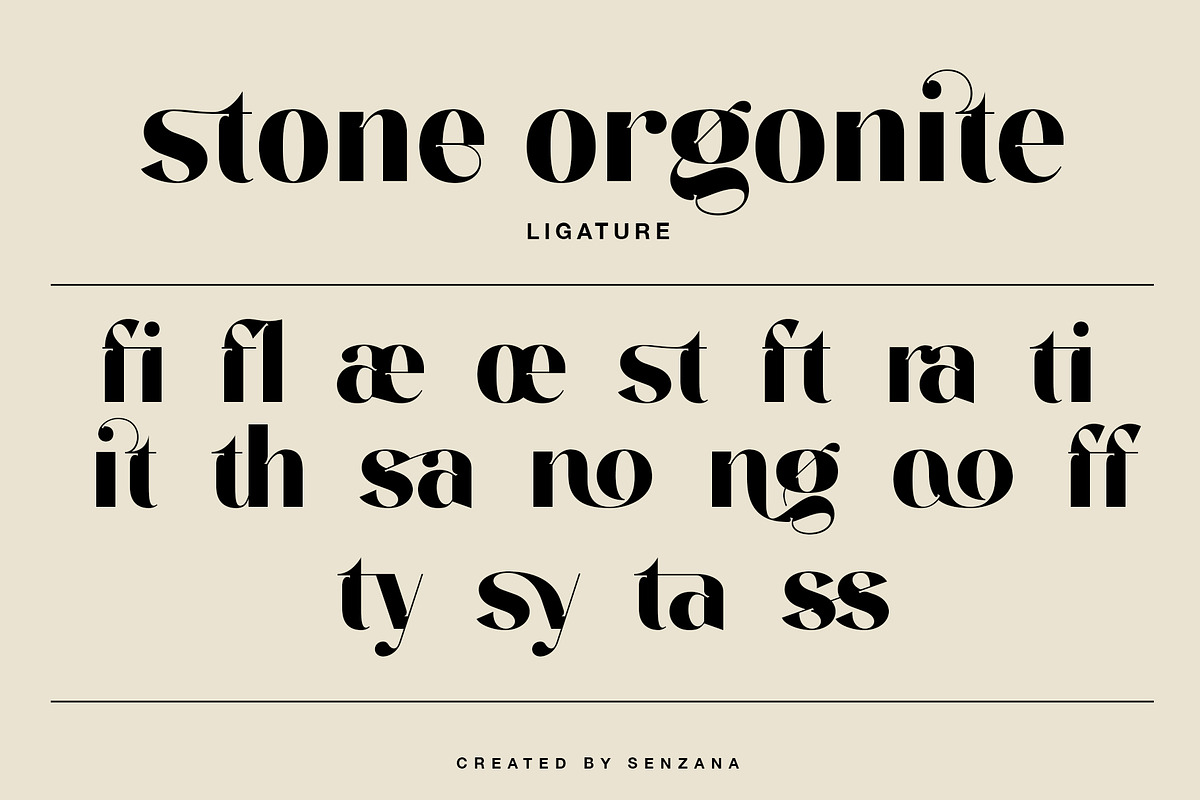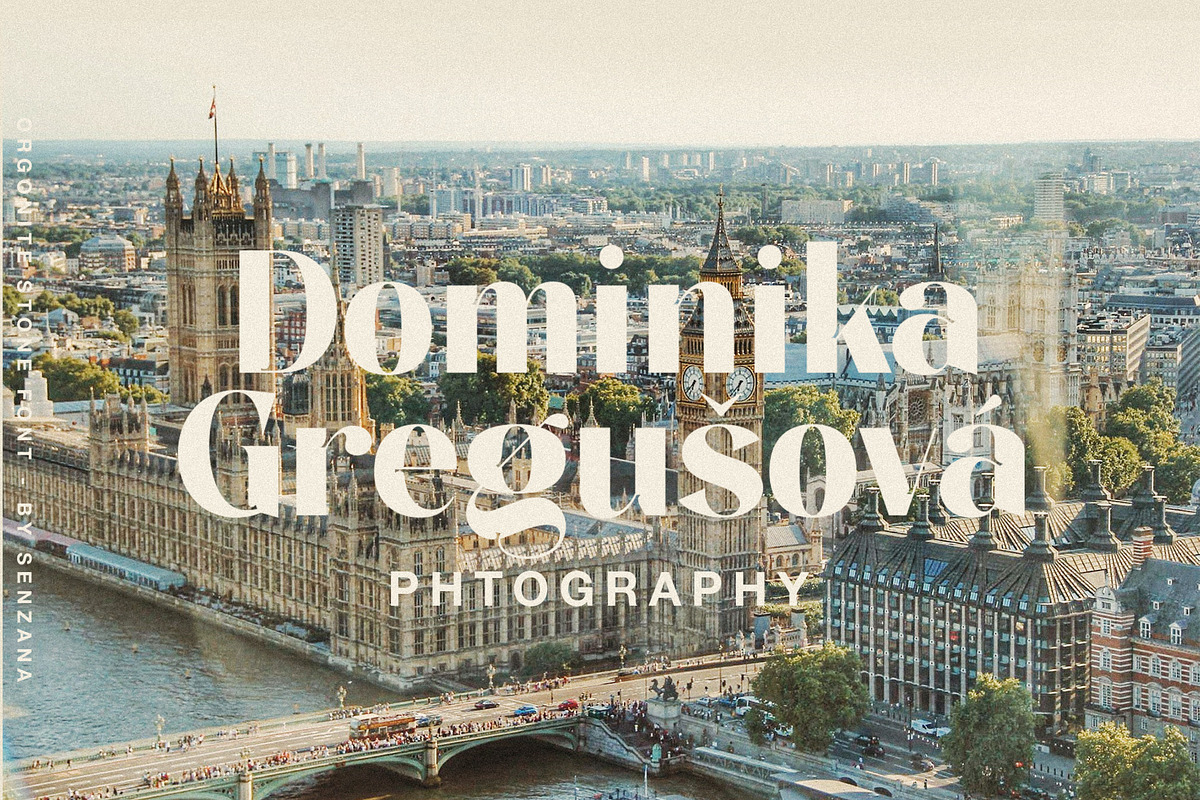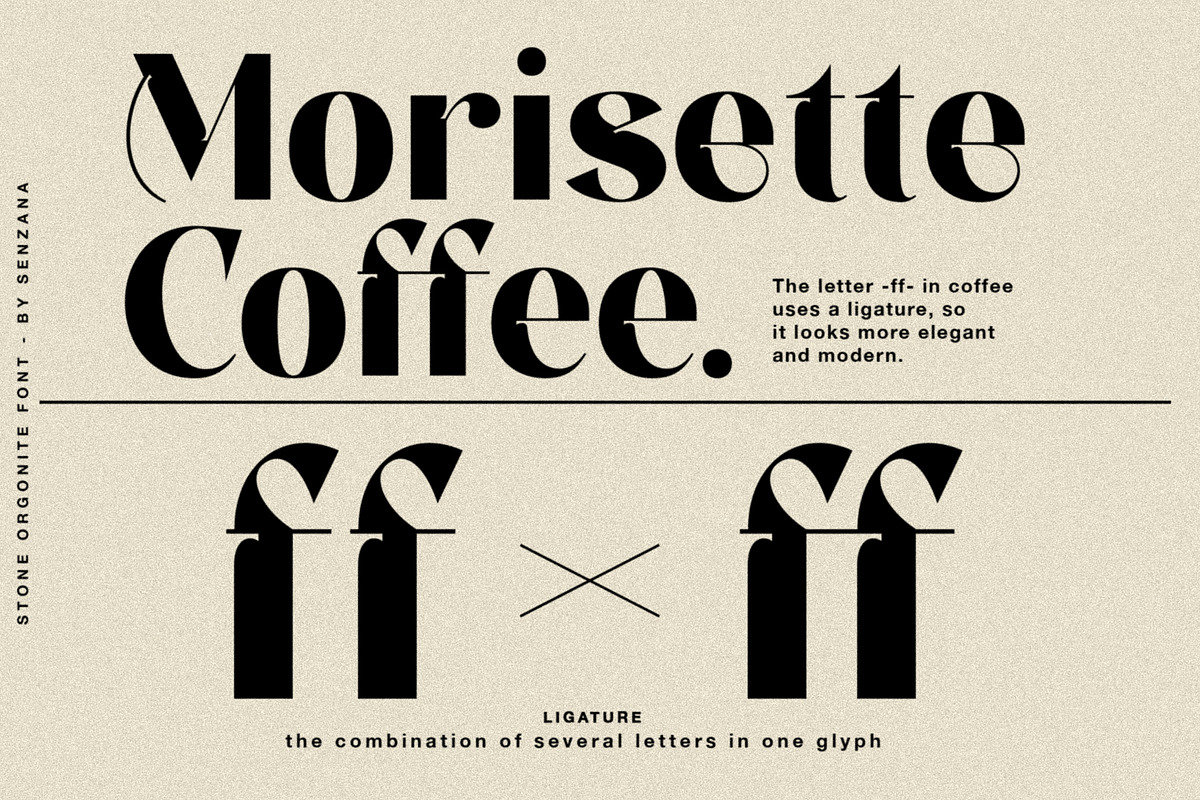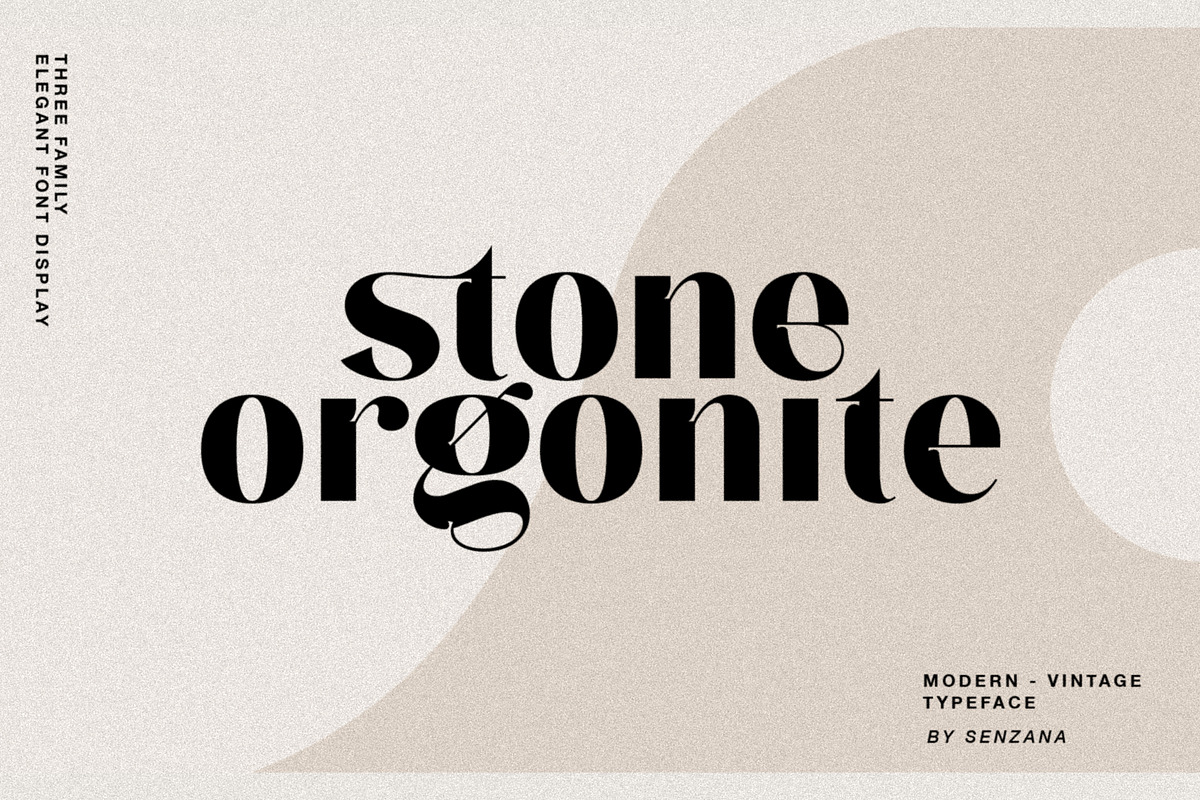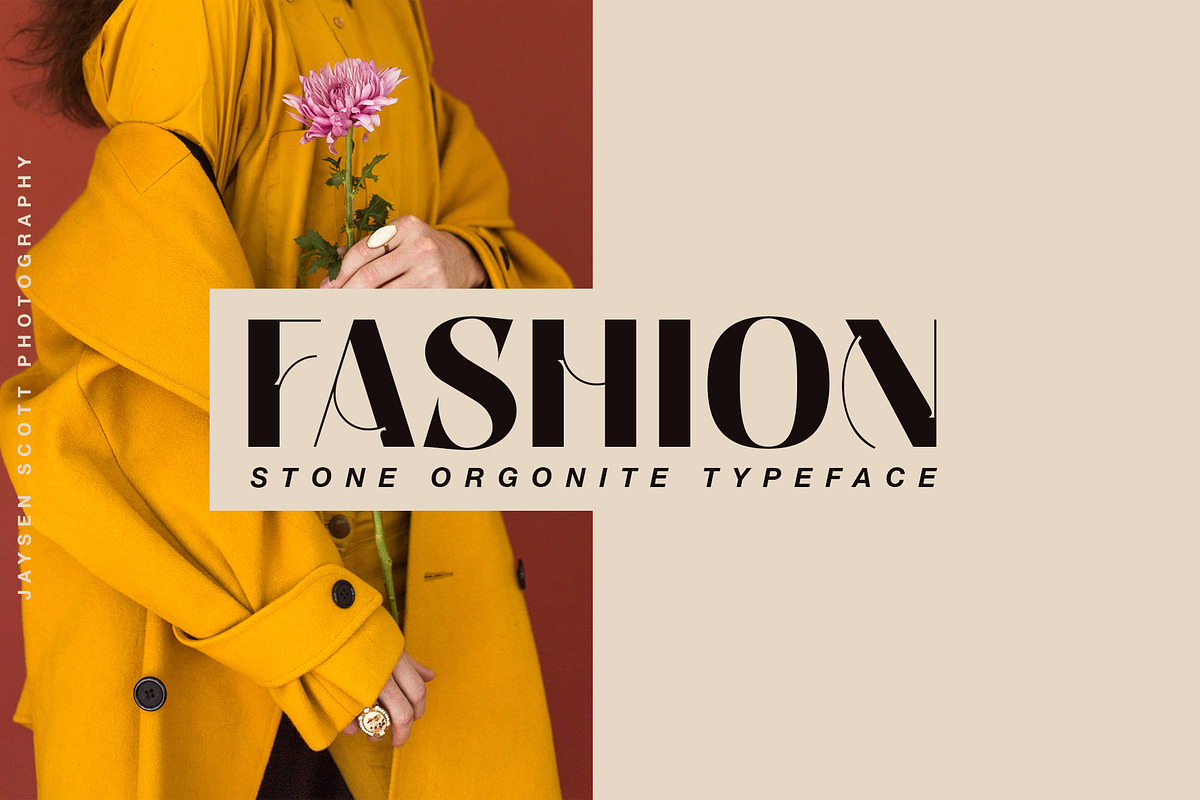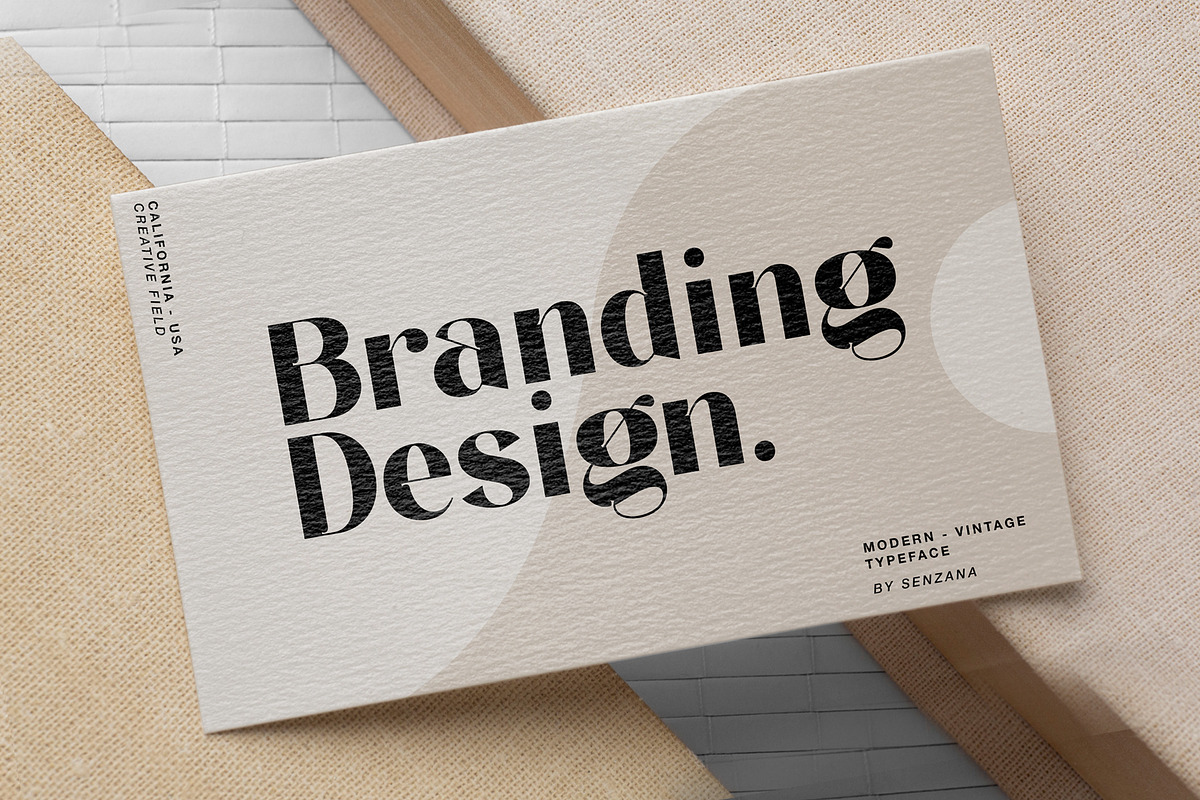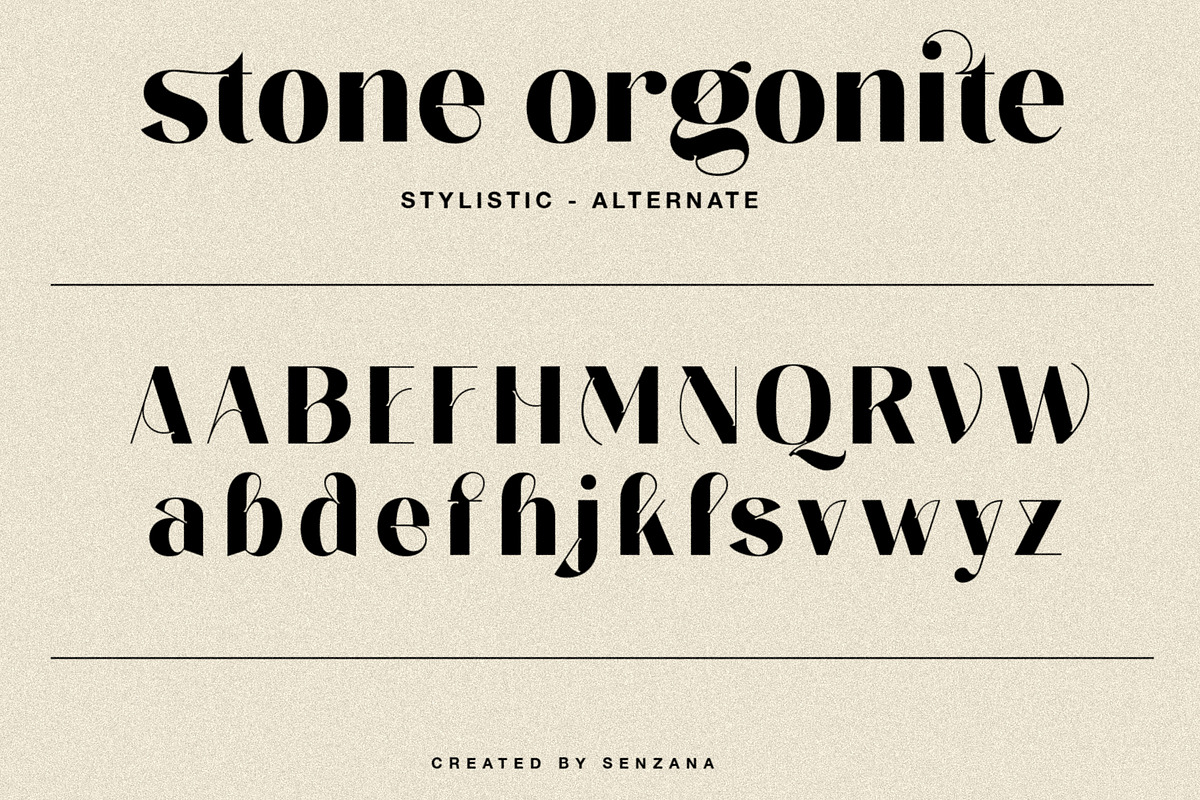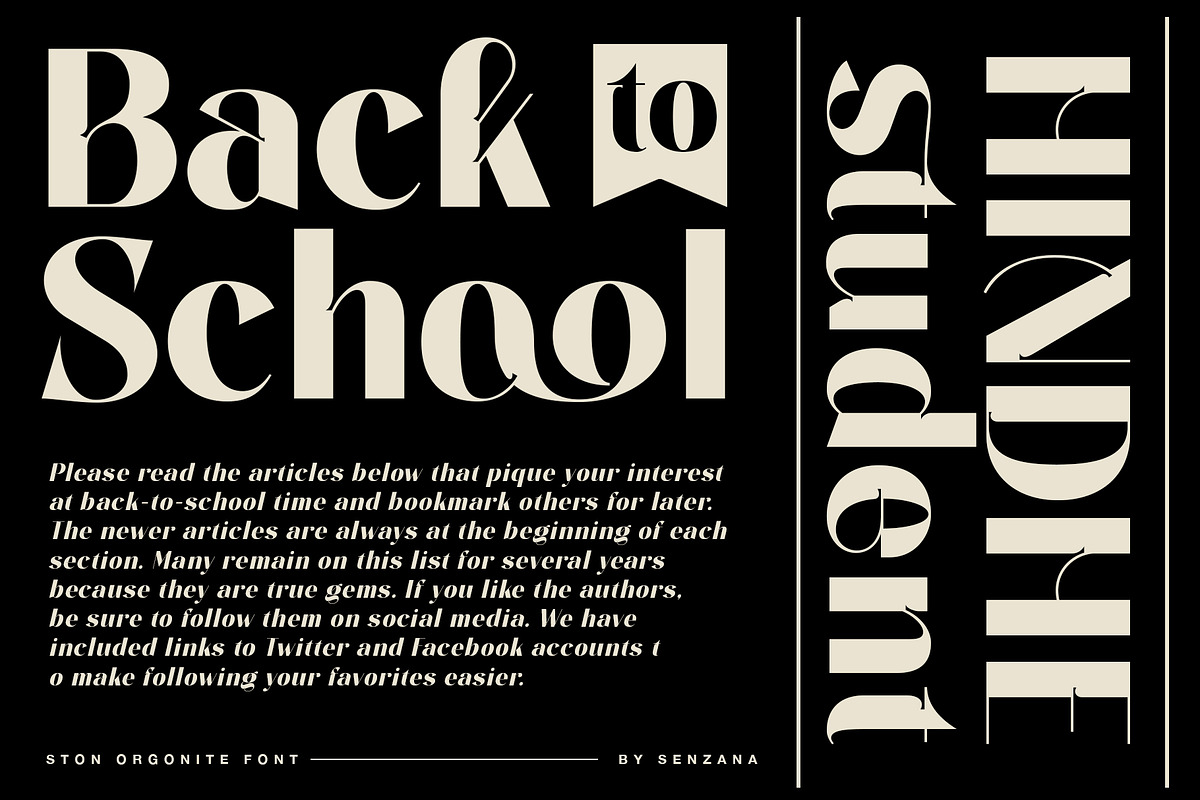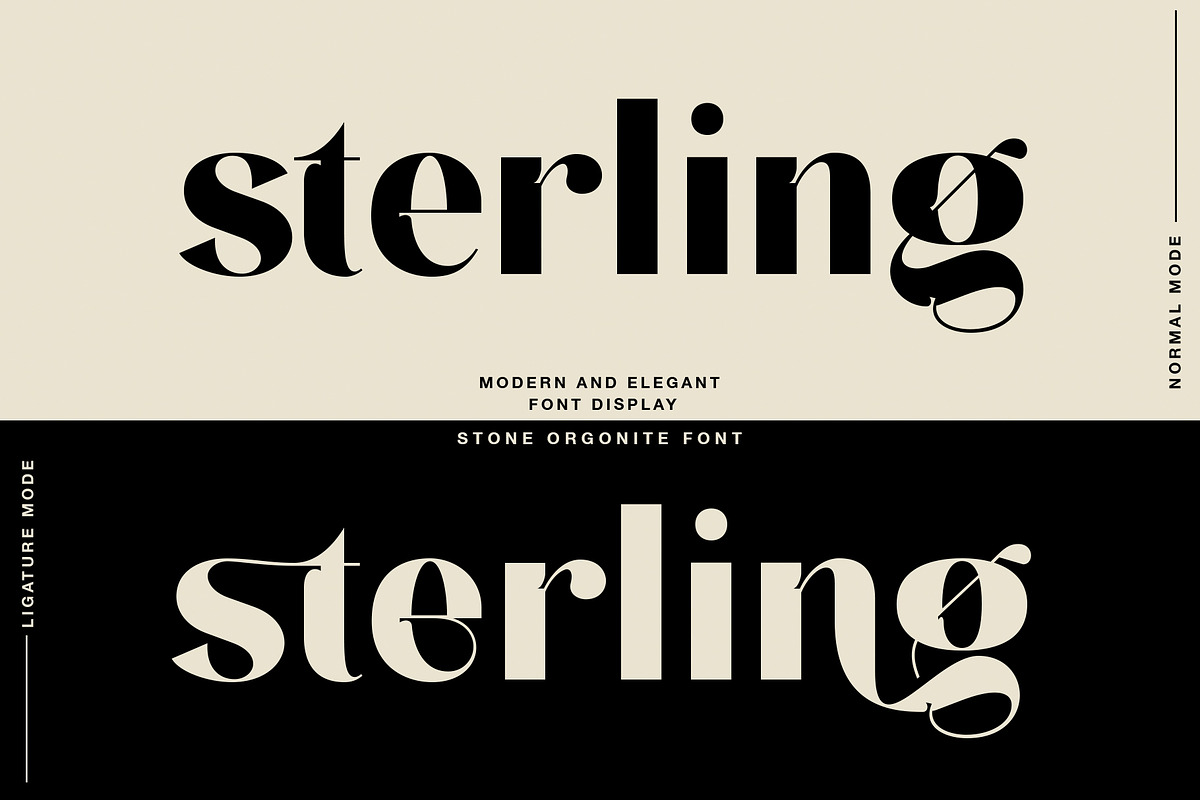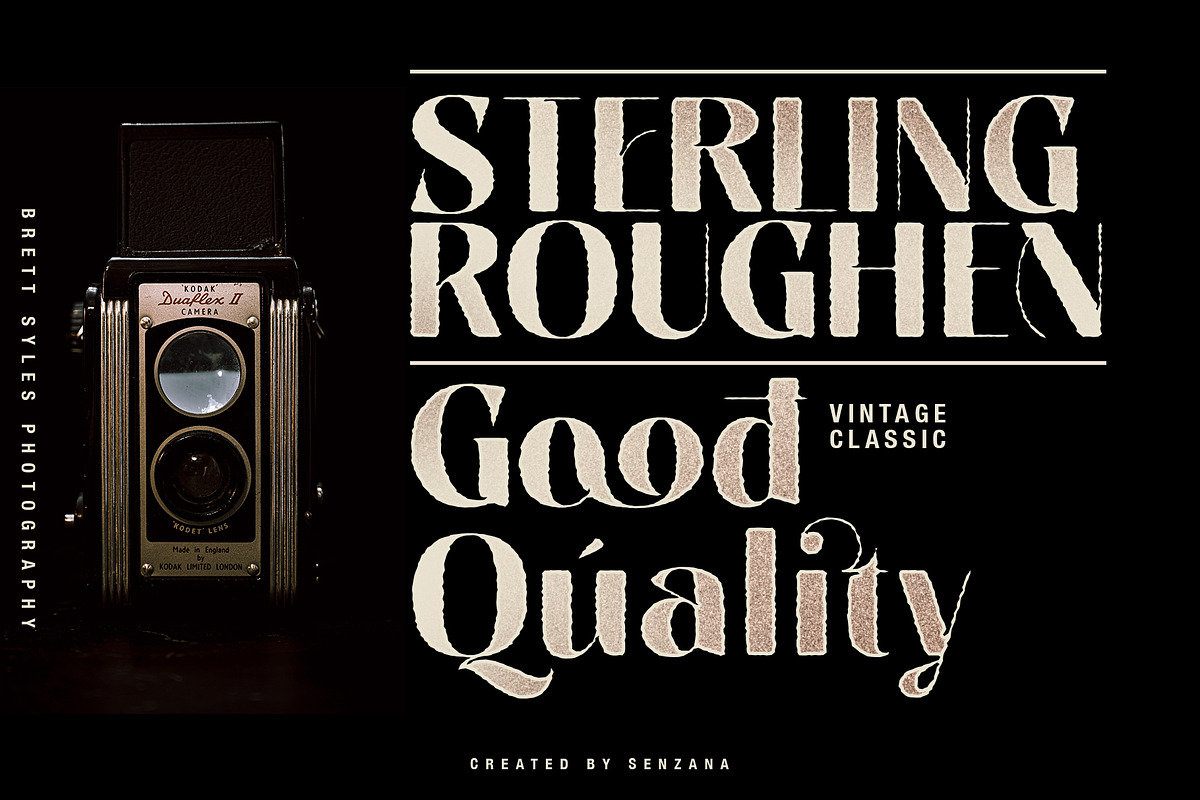
stone orgonite
Hello Good people! First I thank the creativemarket.com team, for giving me the opportunity to develop my skills, and I say a big thank you to those of you who have bought my product, because your purchase will really help the development of my studio and help my small family life. On this occasion I would like to introduce a new product that I named "stone orgonite", inspired by human masterpieces in the form of prism stones that provide potential energy for the environment, like this font, which will give additional energy to every work you do. will look more elegant, stylish and modern. This font has several features which I will describe as follows.
FEATURE
- Numeral
- Functional
- Alternate/Stylistic
- Roughen style
- Italic
- Latin simple - Full